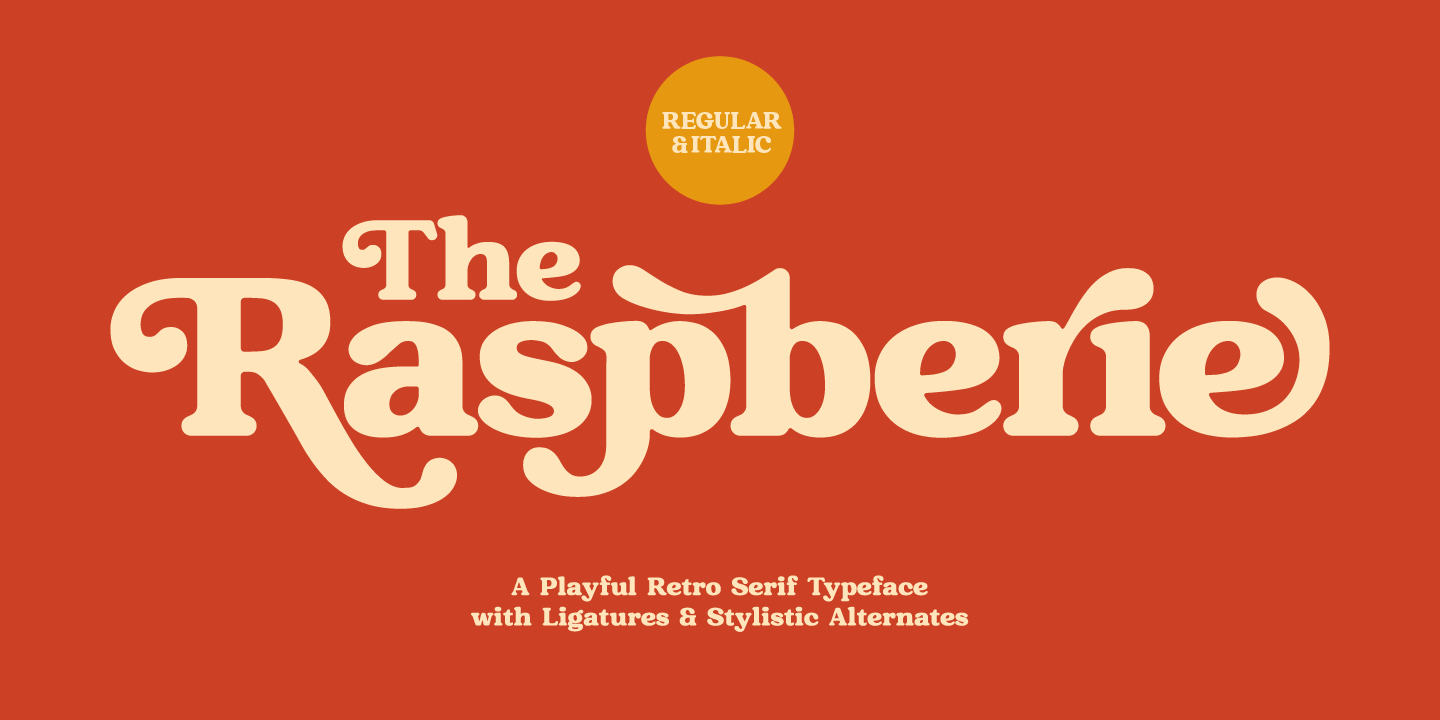
The Raspberie Font is an excellent choice for designs that demand a delightful, whimsical, and often irresistibly sweet aesthetic, perfect for conveying warmth and a playful charm. Imagine it gracing the packaging of artisanal chocolates or gourmet candies, adding a sugary-sweet touch to children's party invitations, or bringing a distinctive, heartwarming vibe to handmade craft branding. It's also perfectly suited for captivating social media graphics, unique branding for bakeries and confectioneries, and any project where you want to evoke a sense of innocence, delight, and delicious charm. With its characteristic rounded forms and often bouncy appearance, the Raspberie Font is ideal for projects that aim for visual appeal and a memorable, joyful impression.
What makes the Raspberie Font truly exciting is its ability to instantly project a sense of fun and an endearing personality. It feels genuinely crafted with a playful spirit, instantly giving your designs a warm and inviting quality. This font often features soft, rounded edges, subtle irregularities, or a charmingly uneven baseline that adds character and warmth, setting it apart from more rigid typefaces. It's perfect for establishing a brand identity that feels fresh, imaginative, and genuinely unique, ensuring your visual communication is not just seen, but appreciated for its authentic and cheerful character. The Raspberie Font Free Download offers a fantastic opportunity to infuse your projects with this distinctive spirit.
The Raspberie Font family is typically designed to offer versatility while maintaining its signature sweet and playful style. While specific family members can vary, you can often expect to find:
Raspberie Regular
Raspberie Bold (for added emphasis and powerful headlines)
Raspberie Outline (for a unique display effect, adding depth)
Raspberie Shadow (for a playful three-dimensional appearance)
Raspberie Italic (for a slanted, dynamic look)
These variations provide flexibility for different design applications, allowing you to create engaging visual hierarchies and maintain a consistent, charming aesthetic across all your projects.